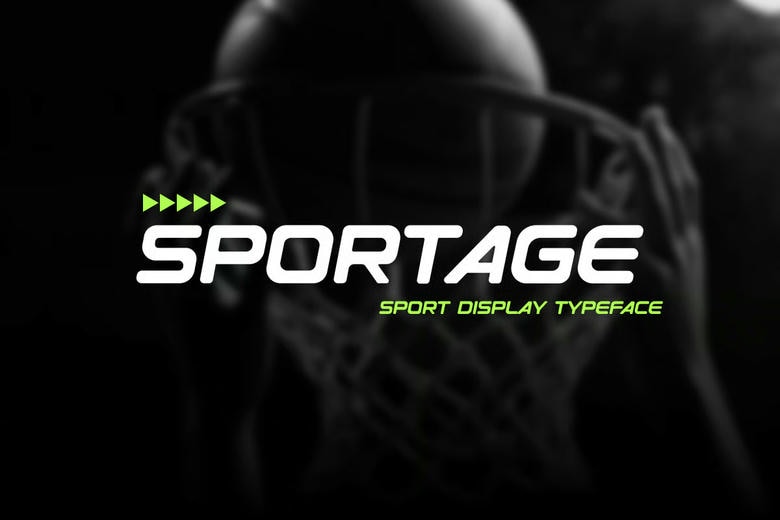
Sportage Font
Sportage is a display typeface with a futuristic, athletic feel, inspired by speed, competition, and high-performance design. Its bold geometric letters, sharp angles, and sleek look give visual projects a strong, modern edge that stands out and suggests movement.
Sportage Futuristic Athletic Display Font